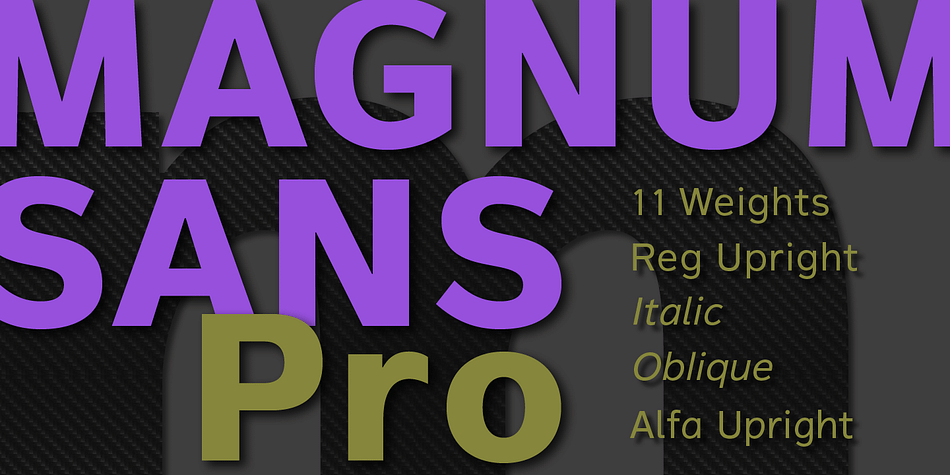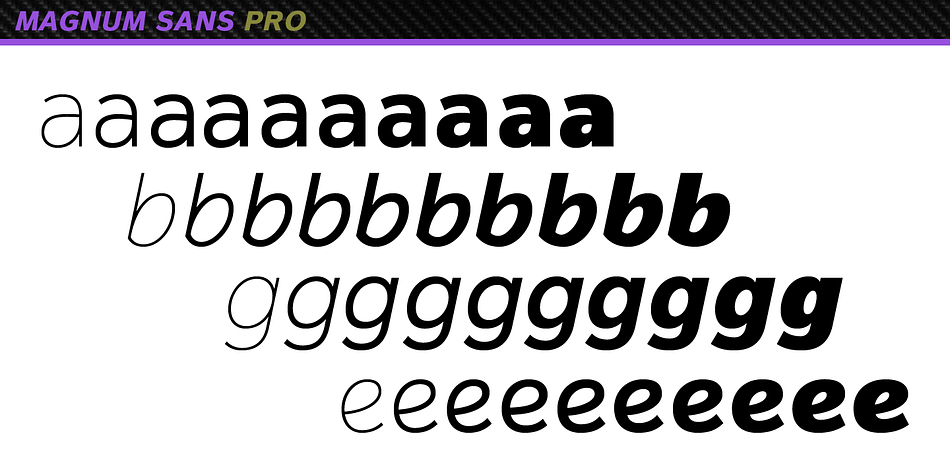
Magnum Sans Pro
Magnum Sans Pro is a sans serif font family. This typeface has forty-three styles and was published by FontMesa.
Magnum Sans is a strong neutral sans serif consisting of eleven weights with true Italic, Oblique and an alt upright set called Alfa.
The definition of Magnum is a large wine bottle that
Designed to be highly readable Magnum Sans is ideal for text, signage, headlines and media broadcasting or anywhere else quick readable lettering is needed.
With the stylistic alternates and swash caps in the Pro set you can expand your creativity in logo designing.
Sprinkle in an alternate letter or two from the pro set makes for a dynamic appeal that
The standard version supports characters sets for central and eastern European countries with code-pages of 1252 Latin1, 1250 Latin 2, 1257 Baltic and 1254 Turkish.
Magnum Sans is a strong neutral sans serif consisting of eleven weights with true Italic, Oblique and an alt upright set called Alfa.
The definition of Magnum is a large wine bottle that’s twice the capacity of one 750ml bottle, today the name is used in any product offering double the capacity, Magnum Sans achieves this by offering two slanted and two upright versions plus a standard and pro set.
Designed to be highly readable Magnum Sans is ideal for text, signage, headlines and media broadcasting or anywhere else quick readable lettering is needed. With the stylistic alternates and swash caps in the Pro set you can expand your creativity in logo designing. Sprinkle in an alternate letter or two from the pro set makes for a dynamic appeal that’s sure to get attention in advertising.
The standard version supports characters sets for central and eastern European countries with code-pages of 1252 Latin1, 1250 Latin 2, 1257 Baltic and 1254 Turkish.
The Pro set includes additional language support for Vietnamese, Pin Yin and Greek.
Opentype features in the Pro set include, Alternate Fractions, Case Sensitive Forms, Denominators, Numerators, Discretionary Ligatures, Standard Ligatures, Old-style Figures, Tabular Figures, Proportional Figures, Ordinals, Scientific Inferiors, Superscript, Subscript, Stylistic Alternates, Swash Caps, Arrows and Enclosed Alphanumeric’s.
Magnum Sans is sure to be a font you’ll use many times and one that you’ll keep at the top of your list.